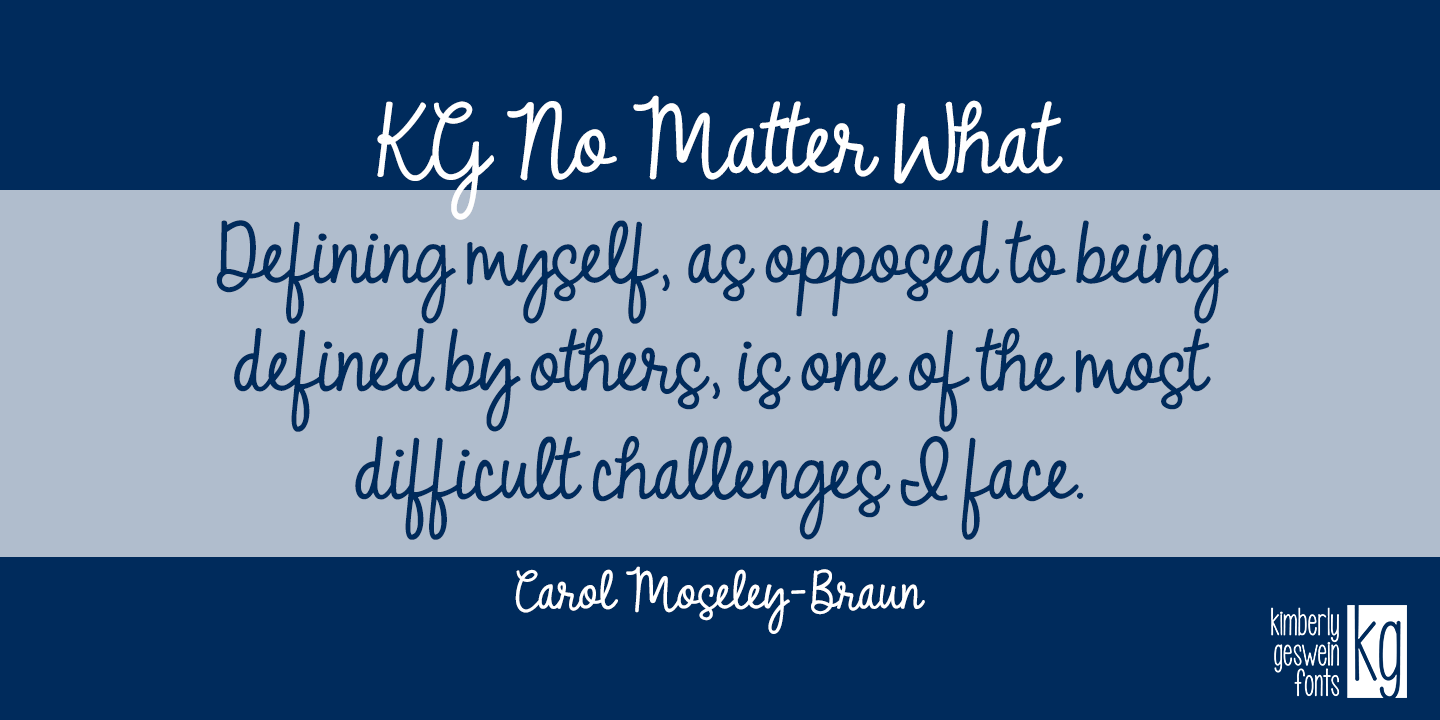
Designed by Kimberly Geswein, KG No Matter What is a hand display, hand drawn and script font published by Kimberly Geswein Fonts.
In honor of our daughter and other lgbt youth who deserve love, no matter what. This script is fluid and feminine and highly legible.
Styles | Hand Display, Script |
Designer | Kimberly Geswein |